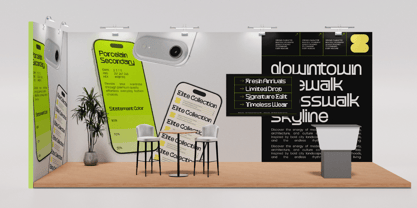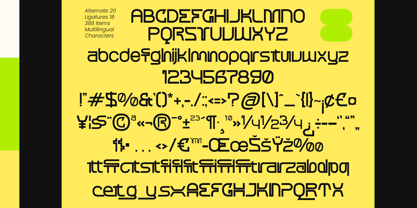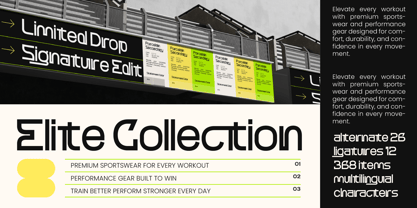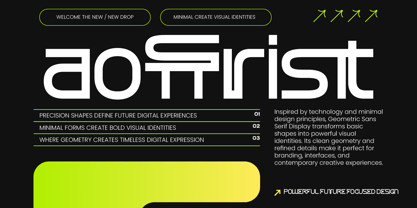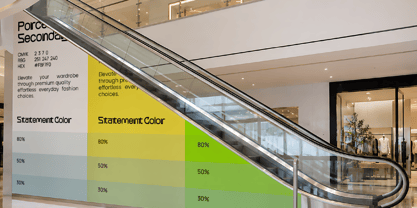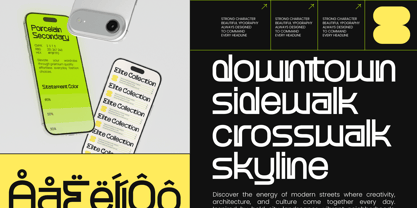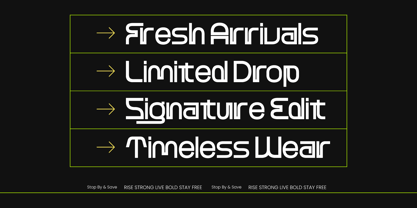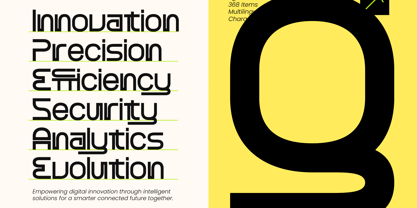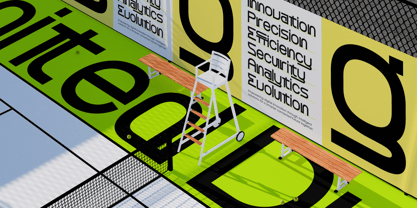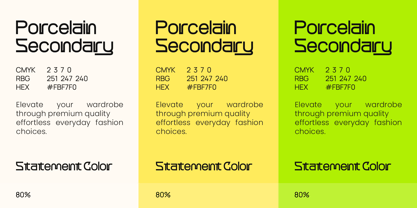
Aoffrist
The Aoffrist Font Family was designed by Heru Utama Putra and published by Timelesstype Studio. Aoffrist contains 2 styles and family package options. More about this family
Aoffrist - Geometric Sans Serif Display is a masterclass in precision engineering and futuristic aesthetics, offering a modern display font that features minimalist geometric forms and a clean structure. By blending mathematical accuracy with artistic expression, it serves as the ultimate choice for designers seeking a bold visual identity in an increasingly competitive marketplace.
Unlock unparalleled creative flexibility through advanced typographic features that push the boundaries of standard layout design. With its comprehensive suite of unique ligatures and alternate characters, Aoffrist - Geometric Sans Serif Display allows for unlimited customization and expressive compositions. Each character is meticulously crafted to maintain perfect balance, ensuring your headlines remain timeless and impactful. With its extensive multilingual support, Aoffrist - Geometric Sans Serif Display adapts seamlessly across global markets, making it incredibly versatile for international projects.